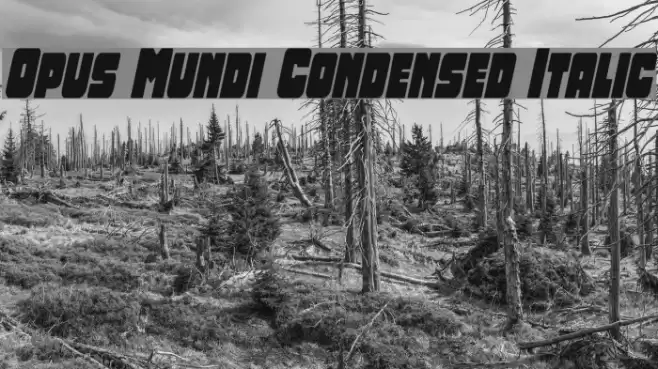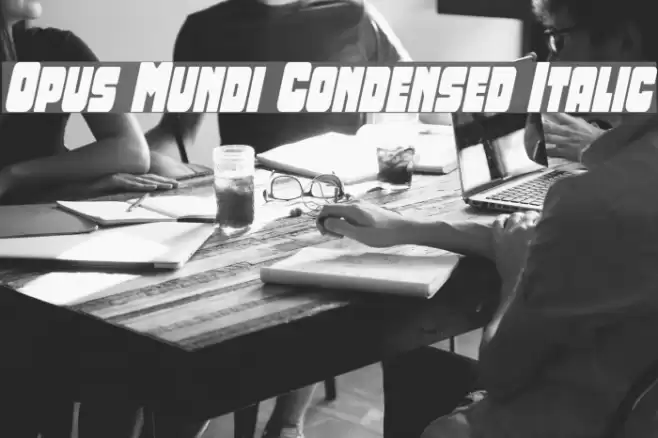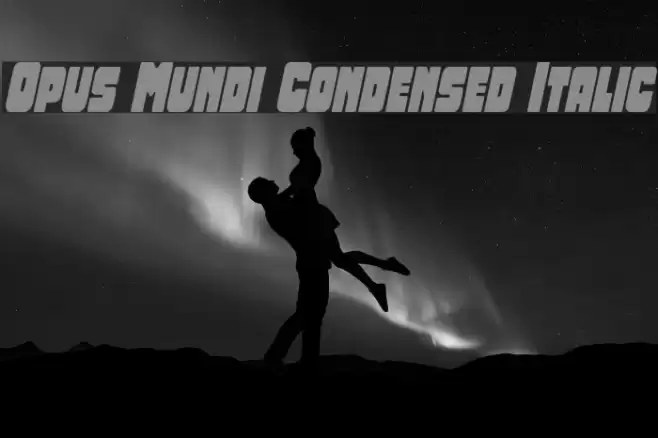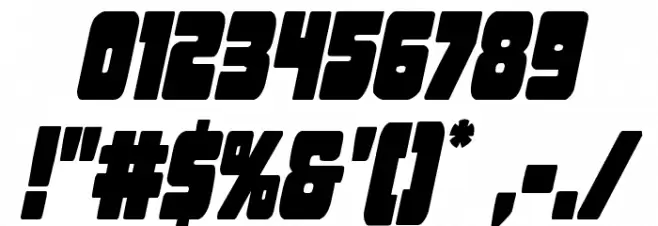
Opus Mundi Condensed Italic Font
Opus Mundi Condensed Italic Description
This font features a bold and dynamic style with a condensed width, giving it a powerful and impactful appearance. The italic slant adds a sense of motion and urgency, making it suitable for attention-grabbing headlines or titles. The characters are uniformly thick, providing a consistent and cohesive look across all letters and numbers. The font's geometric shapes and sharp angles contribute to its modern and assertive aesthetic. It includes a full set of uppercase and lowercase letters, numbers, and a variety of special characters, ensuring versatility in design applications.
A bold, condensed italic font with a modern and dynamic style from Uncategorized fonts.
- Proposed Projects: Ideal for sports branding, dynamic posters, modern advertisements, and impactful headlines.